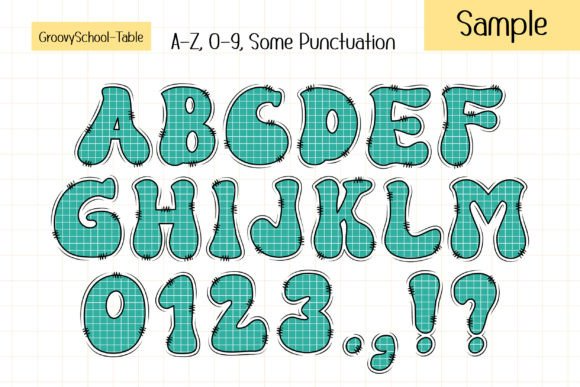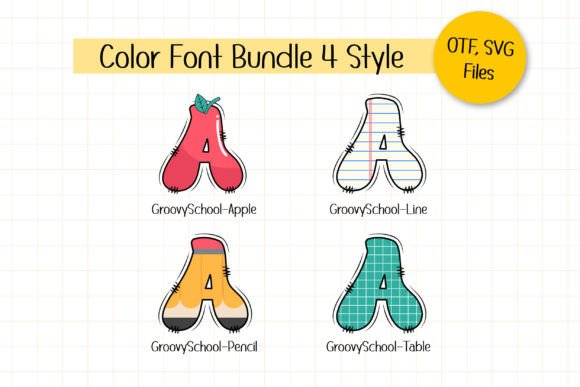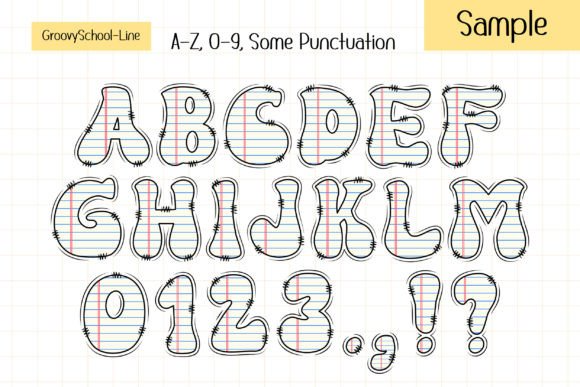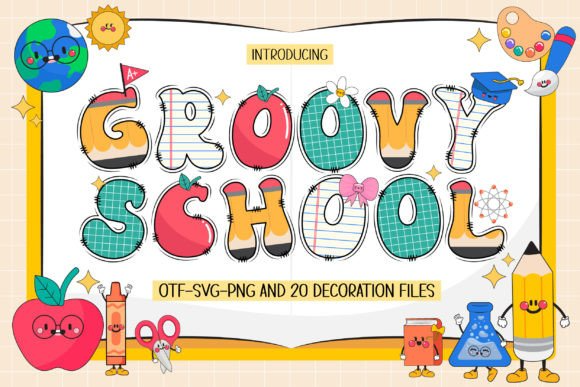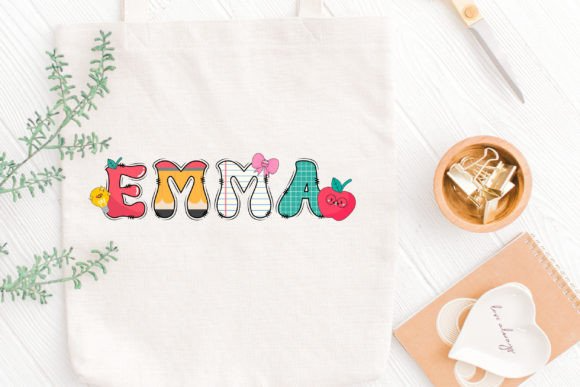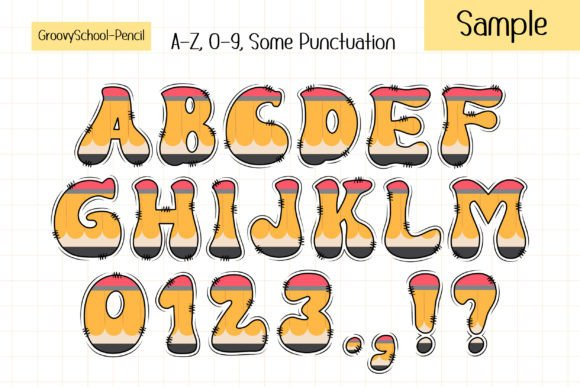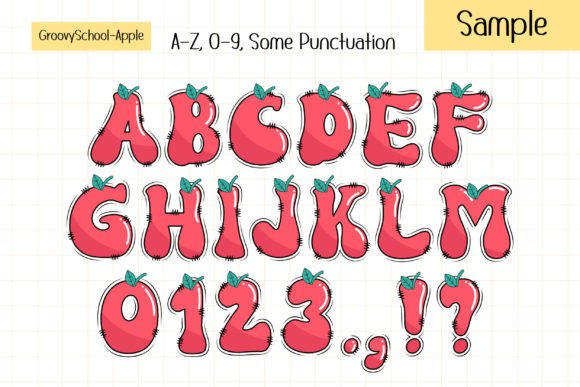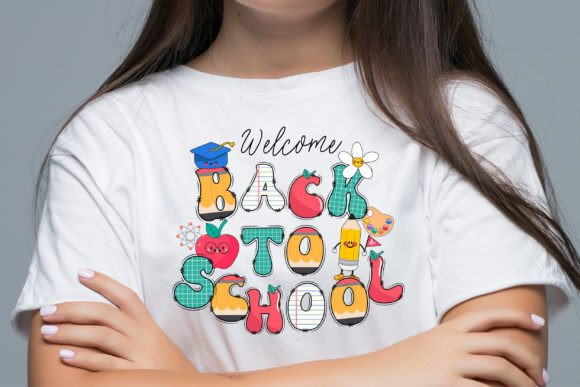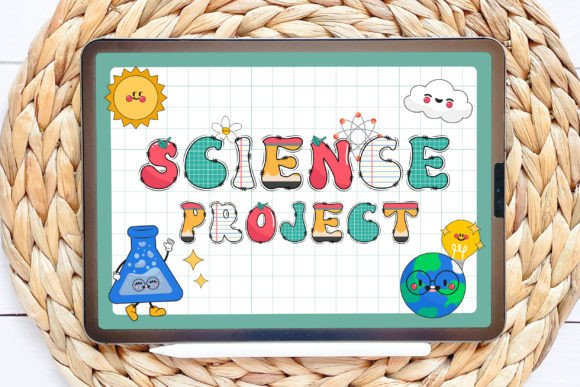
Groovy School Font
Introducing “Groovy School” a fun and playful groovy font designed to bring the vibrant energy of school to life. This font set encompasses various elements related to school, resulting in a dynamic collection that includes 4 unique fonts and 20 matching school doodles. Whether you’re creating instructional media, embarking on custom DIY craft projects, personalizing names, or designing posters, “Groovy School” offers endless creative possibilities. Let your imagination run wild and infuse your designs with the joyful spirit of school days using “Groovy School”!